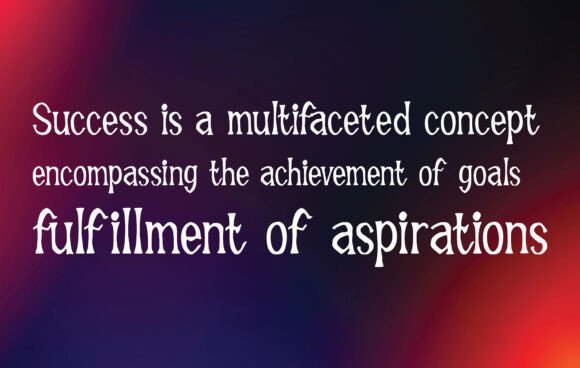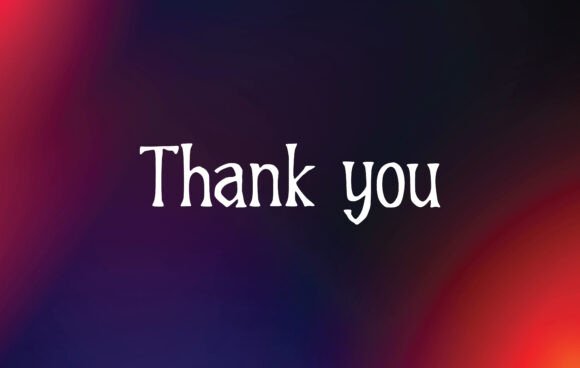
Introduction to Sean Font
Have you ever been working on a creative project, and you just can’t seem to find the right words to bring it all together? You’ve got a vision in your mind, but the fonts just aren’t cooperating. That’s where Sean Font comes in – a beautiful, high-quality handwritten font that can elevate your design to new heights.
As a designer, you know how important it is to have the right design resources at your fingertips. That’s why we’re excited to share Sean Font with you. With its transparent background and free download option, this font is the perfect addition to your design arsenal. Whether you’re creating eye-catching logos, branding, or quotes, Sean Font is the perfect choice to take your creative ideas to the next level.
Key Features of Sean Font
- High-quality, professional font ideal for creative projects and design resources.
- Unique, modern design with a transparent background, perfect for adding a touch of elegance to any project.
- Designed with a high resolution (300 DPI) for optimal print quality.
- Perfect for use in logos, branding materials, and other design elements where a clean and sophisticated look is desired.
Honest Review: Sean Font
I recently stumbled upon the Sean Font, and I’m excited to share my thoughts on this design resource. At first glance, I was impressed by its high quality and versatility.
Here are some aspects that work well:
- ✨ High-quality design with a crisp and clear font style
- ✨ Wide range of creative possibilities due to its transparent background
- ⚠️ Limited font styles and weights compared to other premium fonts
- ⚠️ Not ideal for projects requiring a lot of font variations
Overall, I think the Sean Font is a solid addition to any designer’s toolkit. While it may not be the most comprehensive font library, its high quality and transparent background make it a great choice for creative projects. If you’re looking for a free download to spice up your design, I’d definitely recommend giving it a try.
Sean Font
Sean Font is a high-quality design resource ideal for creative projects. With a transparent background, this versatile font can be easily incorporated into various digital tools. To get the most out of Sean Font, follow these steps:
Tips for Getting the Most Out of Sean Font
Experiment with different font sizes and styles to create visually appealing designs. Use Sean Font in combination with other design elements to add depth and texture.
Sean Font is suitable for a wide range of creative projects, including:
Logos and branding materials
Infographics and data visualizations
Print and digital advertisements
Montserrat is a free download sans-serif font designed for digital design projects. It features a clean and modern design with a transparent background, making it perfect for designing logos, branding materials, and other design resources. Montserrat is a great alternative to Sean Font when you need a high-quality font for web design projects.
Merriweather is a high-quality serif font ideal for creative projects that require a classic and elegant design. It features a transparent background and a wide range of customization options, making it perfect for designing logos, branding materials, and other design resources. Merriweather is a good alternative to Sean Font when you need a font with a classic and sophisticated design.
Does Sean Font have a transparent background, making it suitable for use on any background color?
Yes, Sean Font is designed with a transparent background, making it highly versatile and suitable for use on any background color. This feature allows you to easily combine the font with other design elements, such as images or other fonts, without worrying about background conflicts